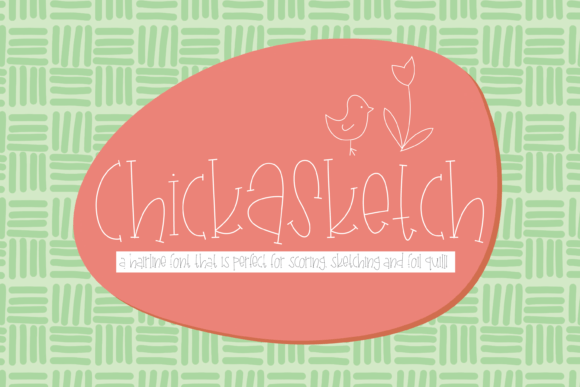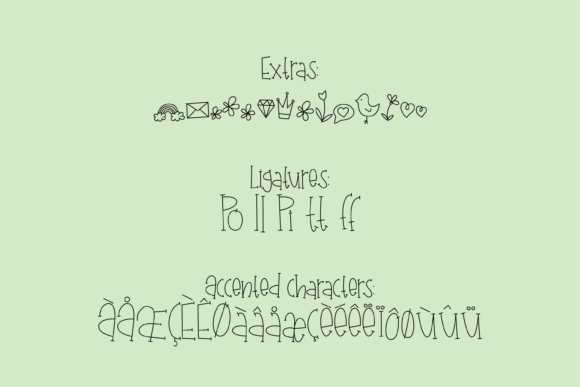
This hairline font is ideal for your next scoring, sketch pen, or foil quill project! Its quirky, thin design is perfect for use with Glowforge, Silhouette, or Cricut machines. Simply set your program to “no-fill” and add a line color to achieve solid letters without the hassle of center voids. Get ready for a seamless crafting experience with this unique and versatile font!
Chick a Sketch Font